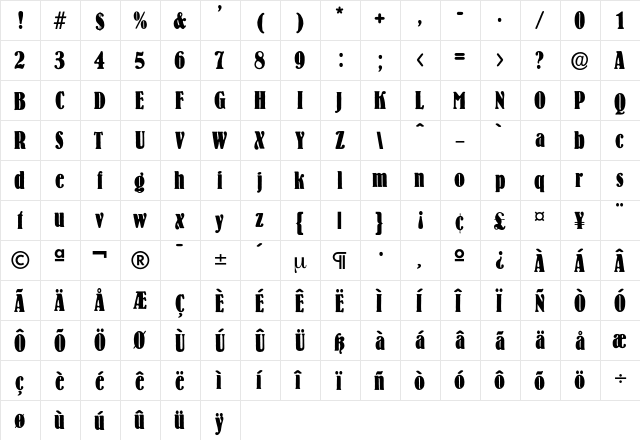
AkronBoldCondensed Regular
Design Context for AkronBoldCondensed Typeface
AkronBoldCondensed takes a measured approach to typography — its balanced proportions and neutral character make it a reliable workhorse for both digital and print work. The heavy weight commands attention and anchors typographic hierarchies. Its narrow stance lets it pack a punch even in space-constrained designs.